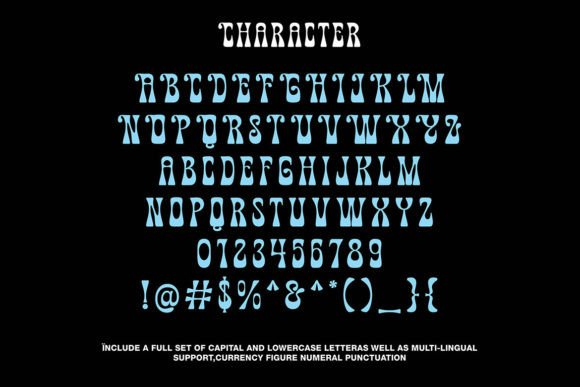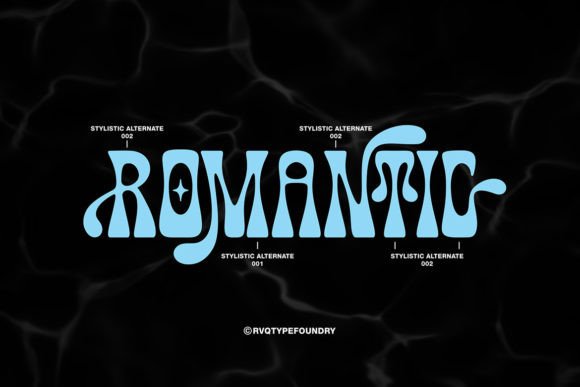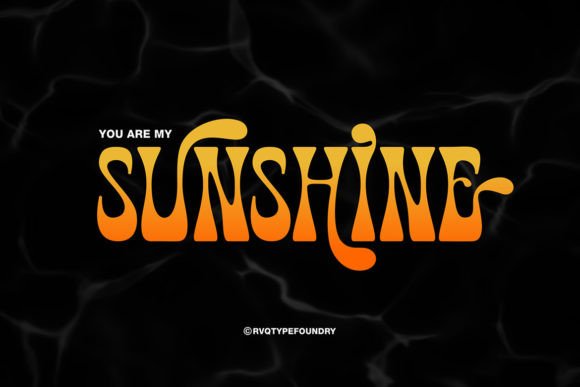
Introduction to Shining Font Font
Fonts play a crucial role in design, and the Shining Font font is a typeface that brings both character and versatility to any project. Whether you’re working on a branding project, a website, or a print design, the Shining Font font offers a unique style that can elevate your work.
The Shining typeface is a vintage and elegant feel character set.
To create the beautiful combination, just mix the uppercase and lowercase then mix with the alternative glyphs The Shining typeface includes a full set of capital and lowercase letters, as well as multi-lingual support, currency figures, numerals, punctuation & some extra glyphs.
Key Features of Shining Font Font
Why Choose Shining Font Font?
The Shining Font font is more than just a typeface – it’s a design tool that helps you communicate your message with style and clarity. Its unique character set and versatile design make it suitable for a wide range of applications, from elegant invitations to bold headlines.
With its carefully crafted letterforms and balanced proportions, the Shining Font font ensures readability and visual appeal across all mediums.
What makes Shining Font font special?
The Shining Font font stands out with its unique design, exceptional readability, and versatility across various design applications.